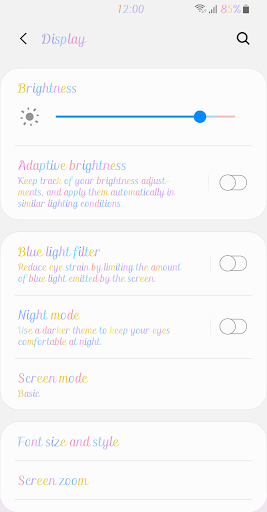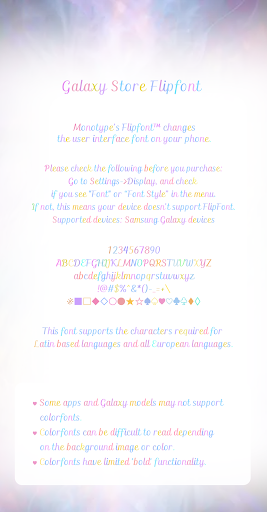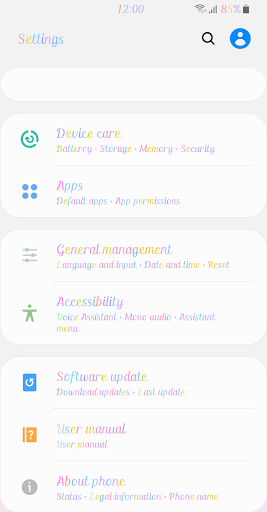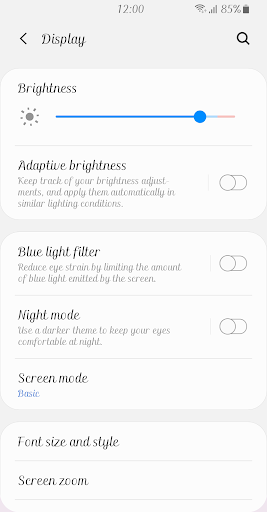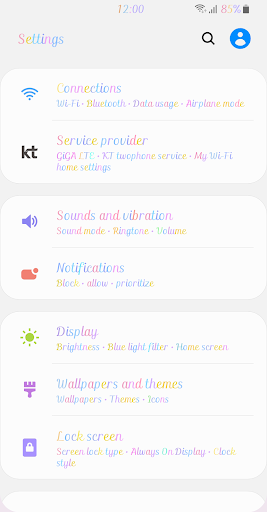
ZF Magical
This is a handwriting style font that conveys the feeling of skillful writing.
You can check the change in thickness according to the movement of the stroke, and the smooth movement shows a stable posture.
You can feel the magical love that fills your screen.